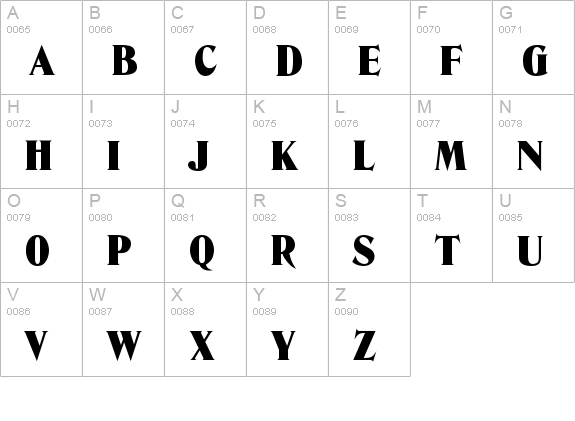
Kazan Display SSi Font Details
Kazan Display SSi is a stunning and versatile font designed to make a bold statement. With its strong and confident letterforms, this font demands attention and adds a touch of elegance to any project. The unique curvature and sharp edges of Kazan Display SSi give it a modern and edgy feel, perfect for headlines, logos, and branding materials. But what sets Kazan Display SSi apart is not just its striking design, but also its availability. This font is freely available to download at FontsMarket.com, making it accessible to designers and creatives from all walks of life. Whether you're a professional designer looking for a fresh font to elevate your work or a hobbyist seeking to add a touch of sophistication to your personal projects, Kazan Display SSi is the perfect choice. The versatility of Kazan Display SSi is evident in its ability to adapt to various design styles, from contemporary to retro. Its clean and clear letterforms make it highly legible even in small sizes, ensuring that your message is effectively communicated to your audience. With its extensive character set, Kazan Display SSi offers support for multiple languages, allowing you to use this font in projects targeting diverse audiences. Additionally, its wide range of decorative glyphs and ligatures provide endless possibilities for creating unique and eye-catching designs. Whether you're designing a poster, a website, or a magazine layout, Kazan Display SSi is the font that will bring your vision to life. Its bold and captivating presence will make your text pop and leave a lasting impression on your audience. So why wait? Download Kazan Display SSi for free at FontsMarket.com and unleash your creativity with this remarkable font. Whether you're a seasoned professional or just starting on your design journey, Kazan Display SSi is the perfect tool to elevate your projects and make a lasting impact. Don't miss out on this incredible opportunity to enhance your work with one of the most impressive fonts available.